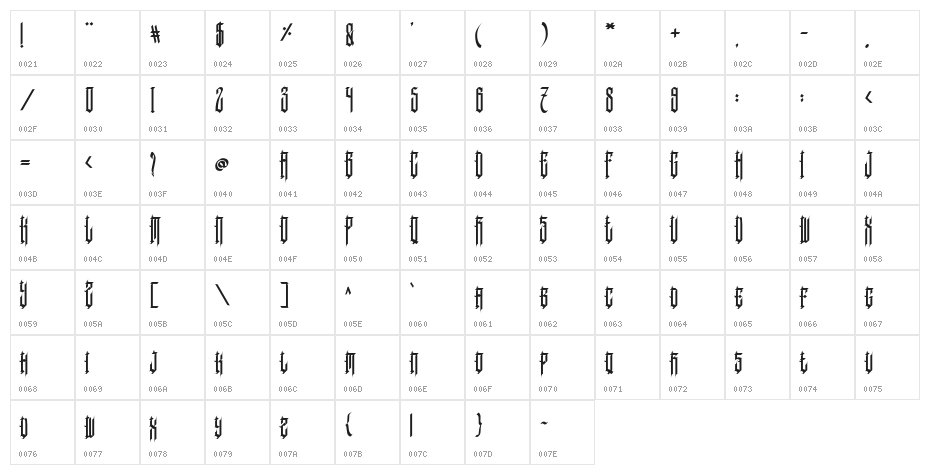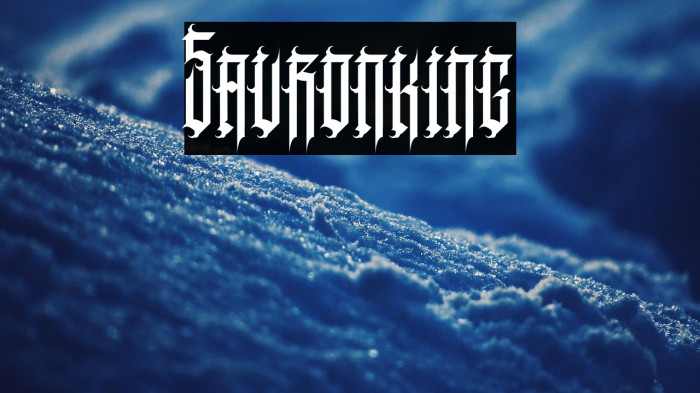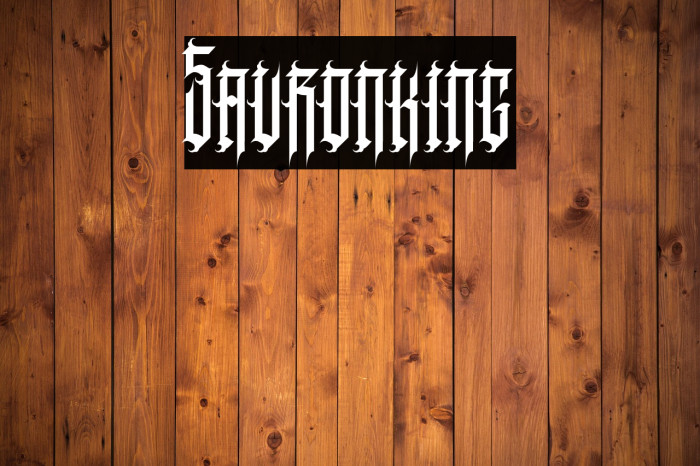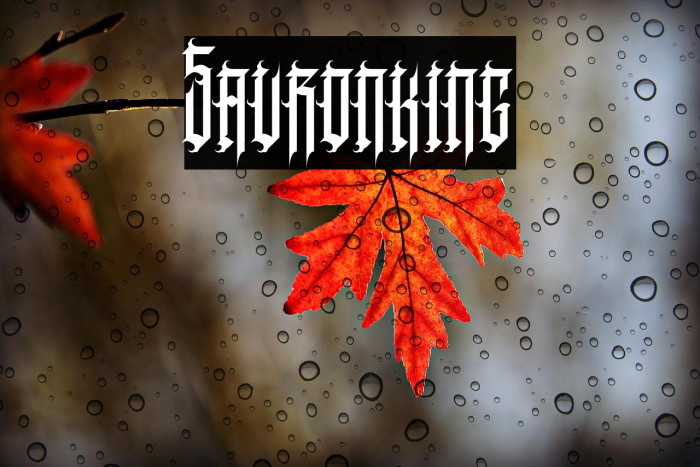
Sauronking Font
| Vorgeschlagene Projekte | Ideal for fantasy-themed designs, medieval event posters, book covers, and branding that requires a historical or gothic touch. |